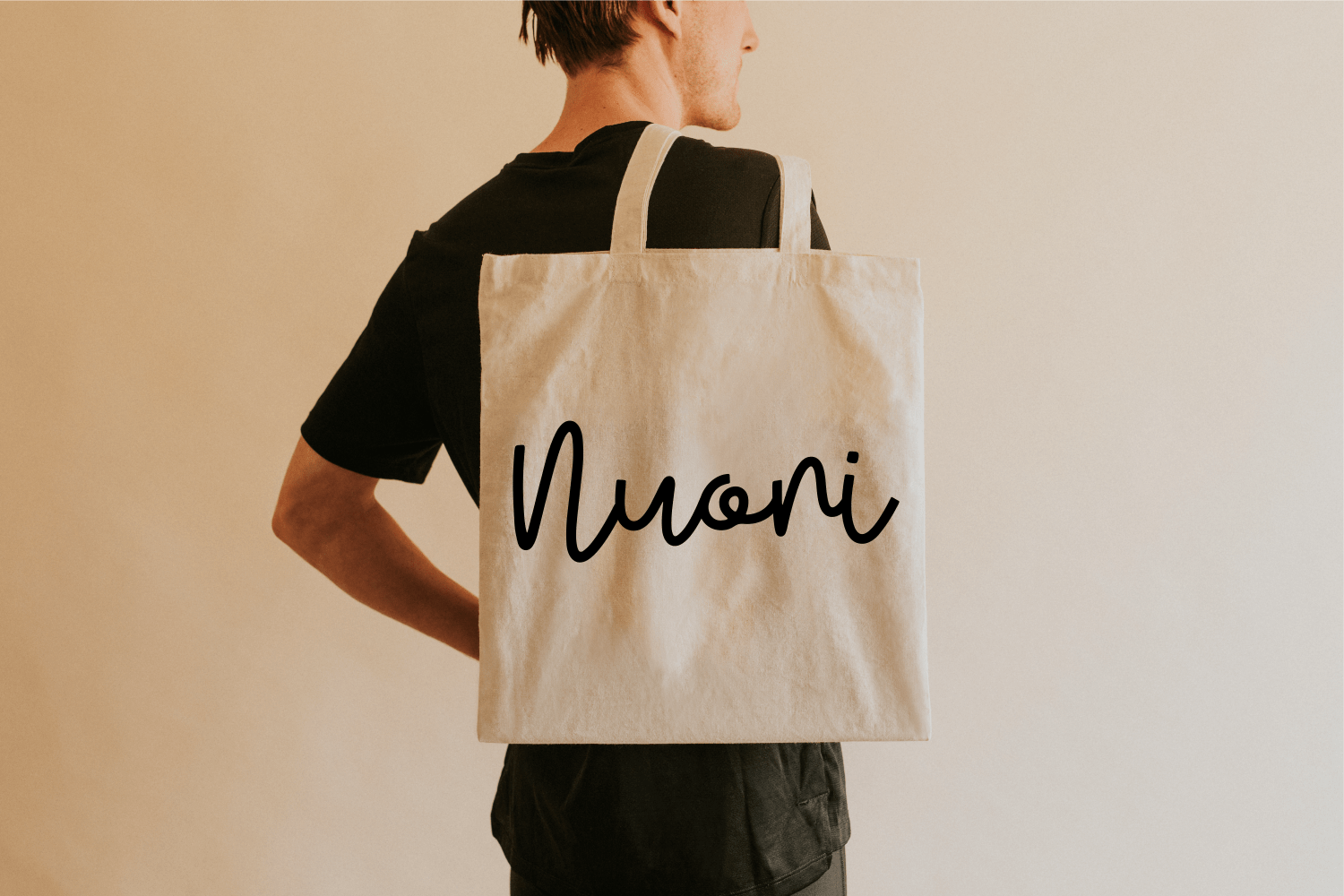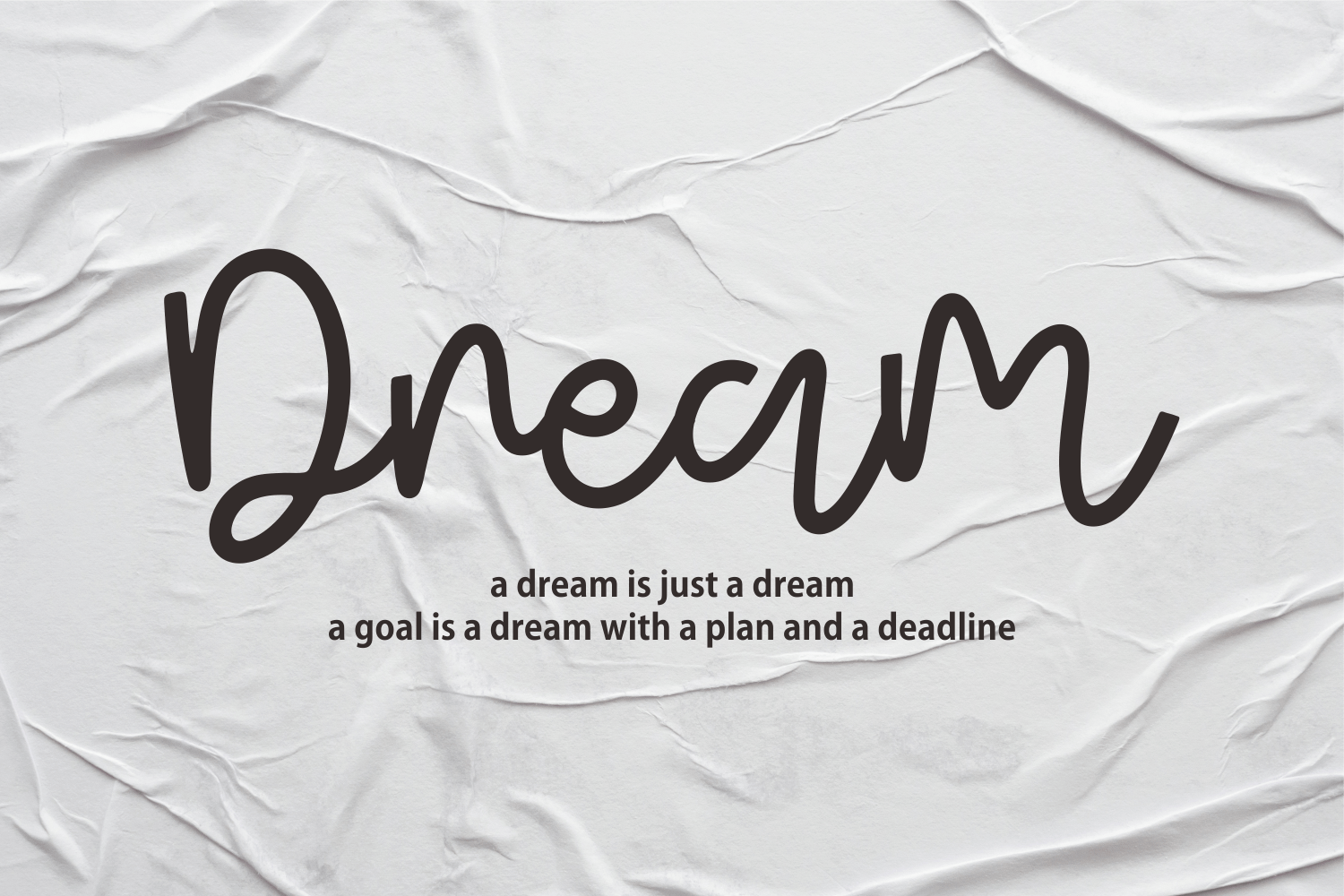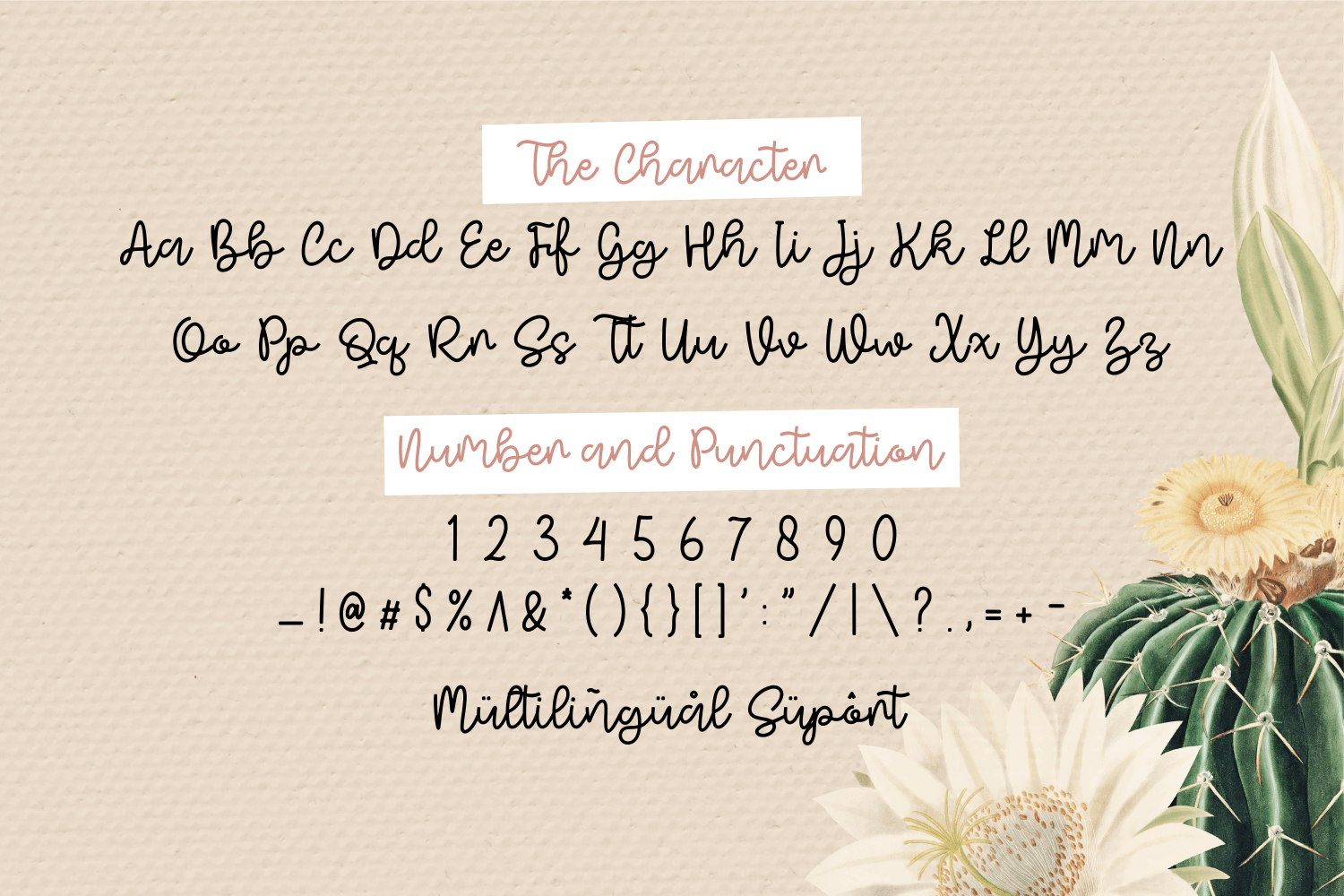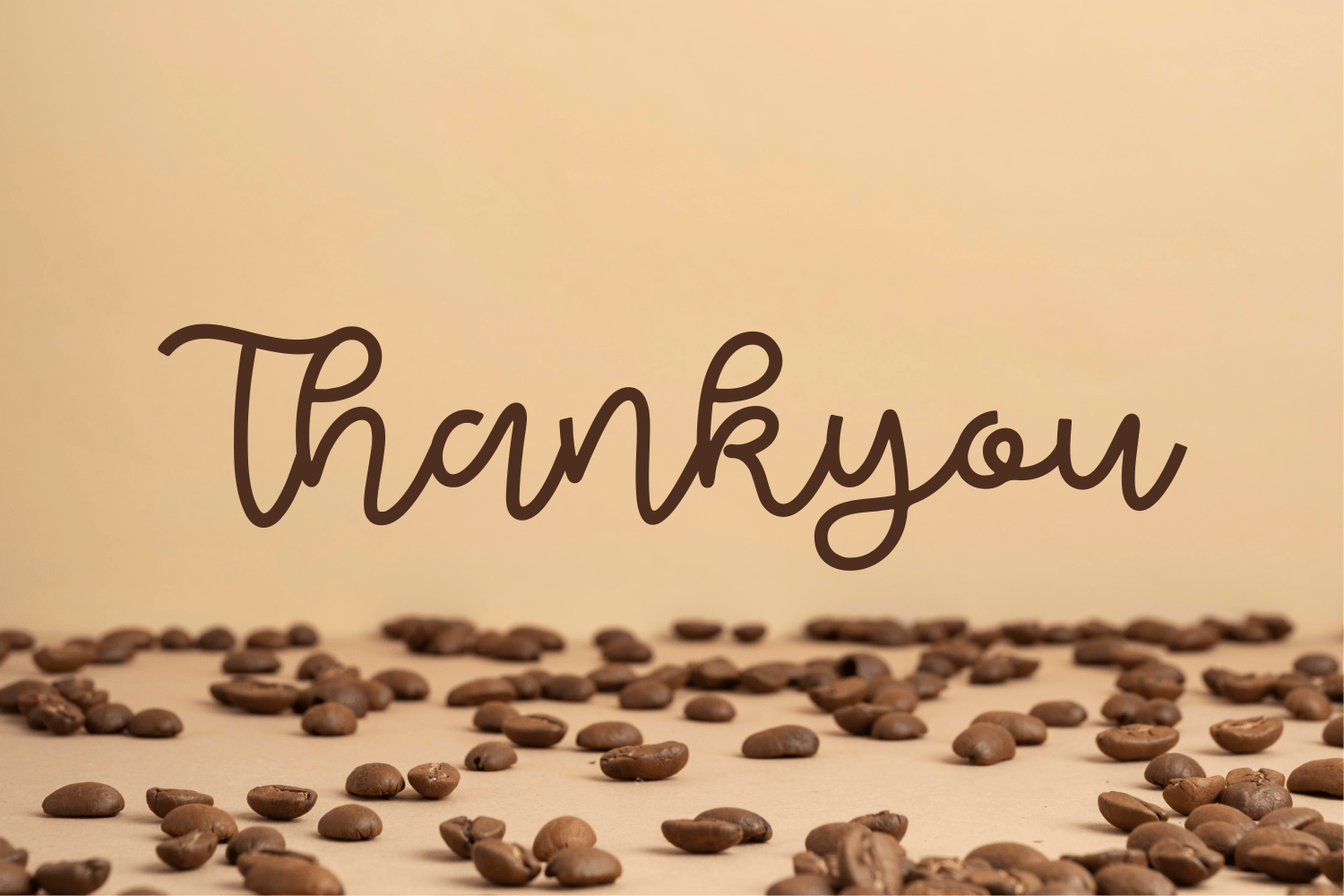
Semi Nice Handwritten Font is a fancy and elegant handcrafted font that was created to impress your audience and make your branding shine. Use it for your headings, logos, ads, printed quotes, packaging, and even your website or social media branding.